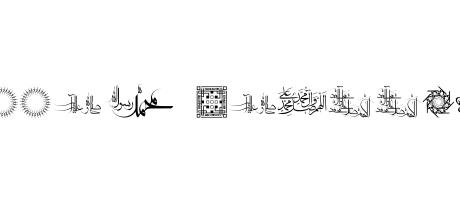
Mohammad RasoolAllah
By Mojtaba Kia
Mohammad RasoolAllah, a flowing script, possesses a graceful elegance. Its curves are fluid and interconnected, giving it a calligraphic feel. The letters are ornate yet legible, reflecting a balance between artistic flourish and clear communication. The overall style suggests a traditional, possibly Islamic, origin.